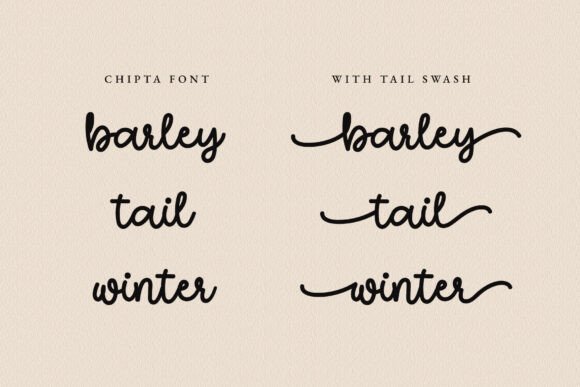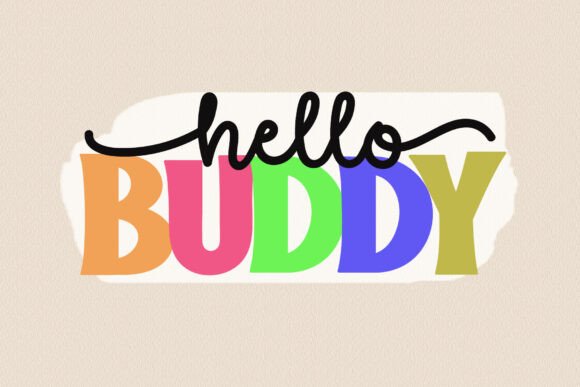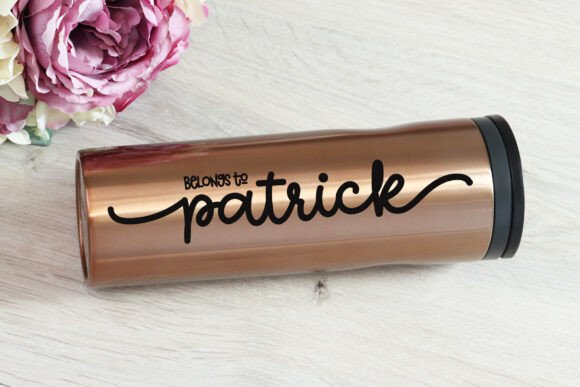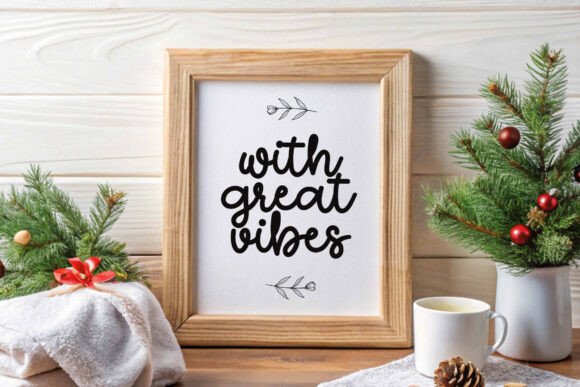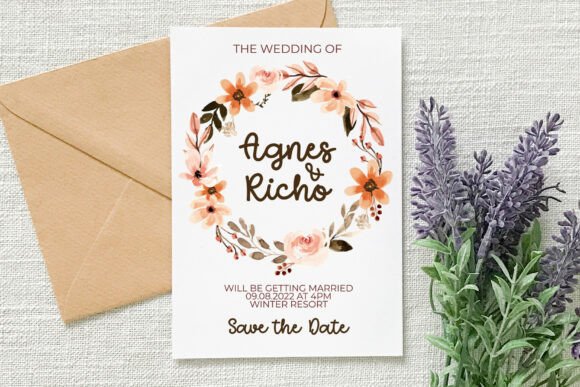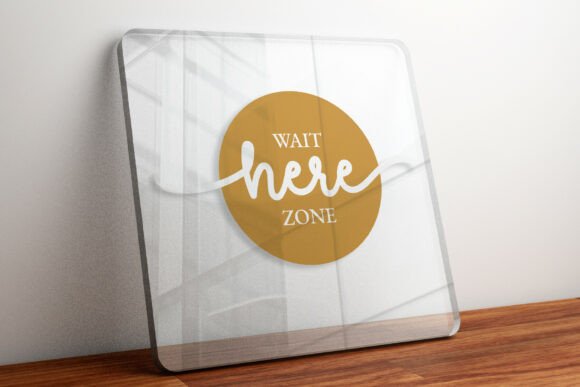
Introducing Chipta Font: Elevate Your Designs with Elegance and Sophistication
In the world of typography, fonts play a crucial role in conveying the tone and personality of a design. For designers and crafters looking for a font that exudes elegance, sophistication, and a touch of modernity, Chipta Font is an excellent choice. This smooth monoline script font is designed to add a stylish finishing touch to various design projects, making it a versatile and charming addition to any creative endeavor.
What Makes Chipta Font Stand Out?
Chipta Font boasts a clean flow and a modern handwritten feel, making it perfect for a wide range of applications, including logos, invitations, branding, packaging, quotes, and social media designs. Its elegant swashes add a touch of sophistication, setting it apart from other fonts in its category. Whether you’re working on a luxury brand’s logo or a wedding invitation, Chipta Font is sure to make your project stand out beautifully.
Key Features of Chipta Font
- Smooth Monoline Script: Chipta Font features a smooth monoline script that offers a clean and modern look, perfect for designs that require a touch of elegance.
- Elegant Swashes: The font comes with elegant swashes that can be used to add a stylish finishing touch to your designs, making them more visually appealing.
- Modern Handwritten Feel: Despite its elegance, Chipta Font maintains a modern handwritten feel, making it versatile for various design applications.
- Clean Flow: The clean flow of the font ensures that it is easy to read and works well in both digital and print formats.
Uses of Chipta Font
Chipta Font’s versatility makes it suitable for a variety of design projects. Here are some of the ways you can use this beautiful font:
- Logos: Create stunning logos for luxury brands, boutiques, or any business that requires a touch of elegance and sophistication.
- Invitations: Design beautiful wedding invitations, birthday invites, or any other special occasion with a personal touch.
- Branding: Use Chipta Font for branding materials such as business cards, letterheads, or packaging to give your brand a unique identity.
- Packaging: Add a touch of elegance to your product packaging, making it stand out on store shelves.
- Quotes and Social Media Designs: Create visually appealing quotes and social media graphics that are sure to engage your audience.
Why Choose Chipta Font?
With so many fonts available, why should you choose Chipta Font for your next project? Here are a few reasons:
- Unique and Distinctive: Chipta Font offers a unique and distinctive look that can help your designs stand out from the crowd.
- Elegant and Sophisticated: The font’s elegant swashes and smooth monoline script give it a sophisticated look, perfect for luxury brands and high-end designs.
- Versatile: Whether you’re working on a digital project or a print design, Chipta Font adapts well to various formats.
- User-Friendly: The clean flow and readability of the font make it easy to use for both designers and readers.
Chipta Font is a beautiful addition to any designer’s font collection. Its smooth monoline script, elegant swashes, and modern handwritten feel make it perfect for a wide range of design projects. Whether you’re looking to create a stunning logo, an elegant invitation, or a unique brand identity, Chipta Font is sure to elevate your designs with its touch of sophistication and elegance. With its versatility and user-friendly features, Chipta Font is an excellent choice for designers and crafters looking to add a stylish finishing touch to their projects.